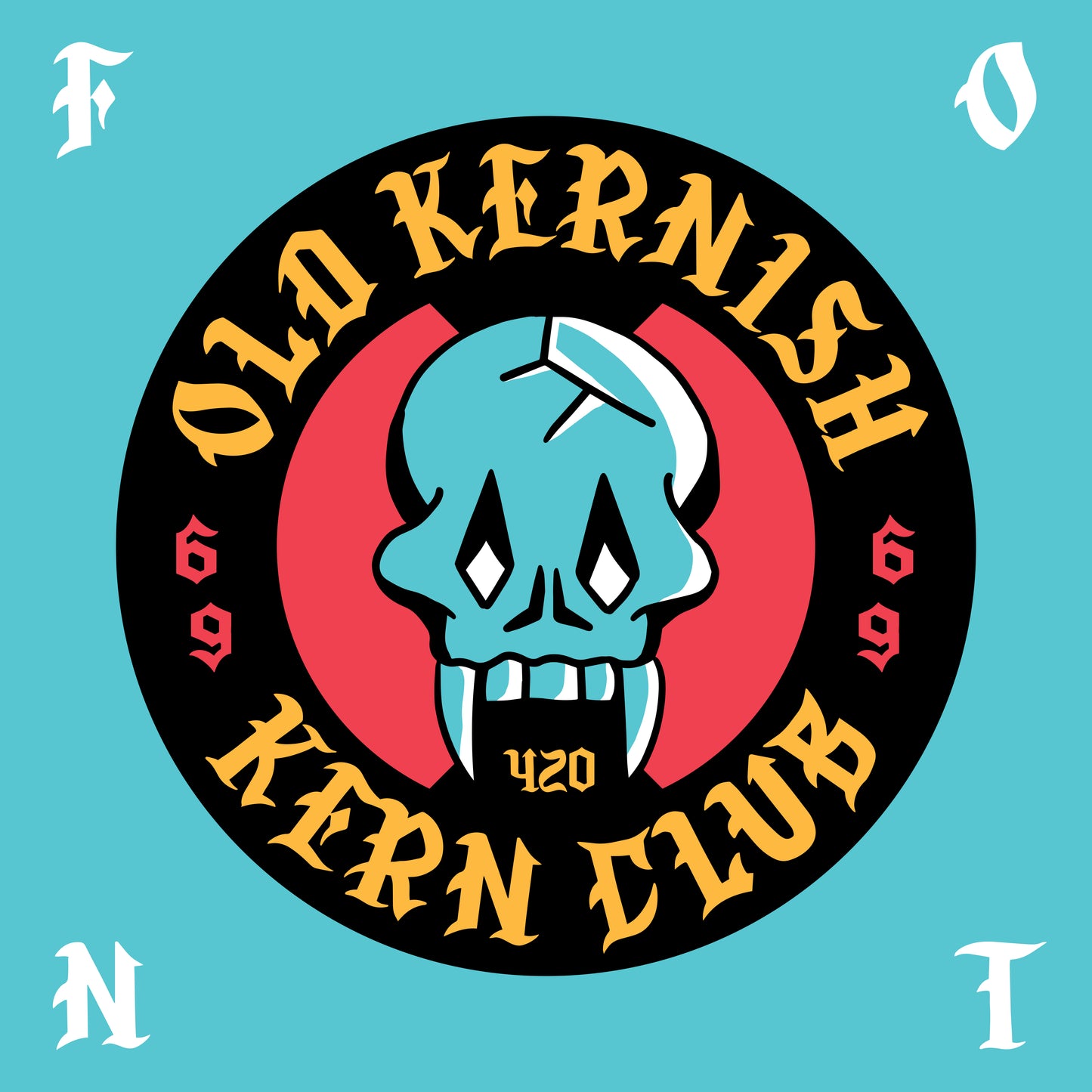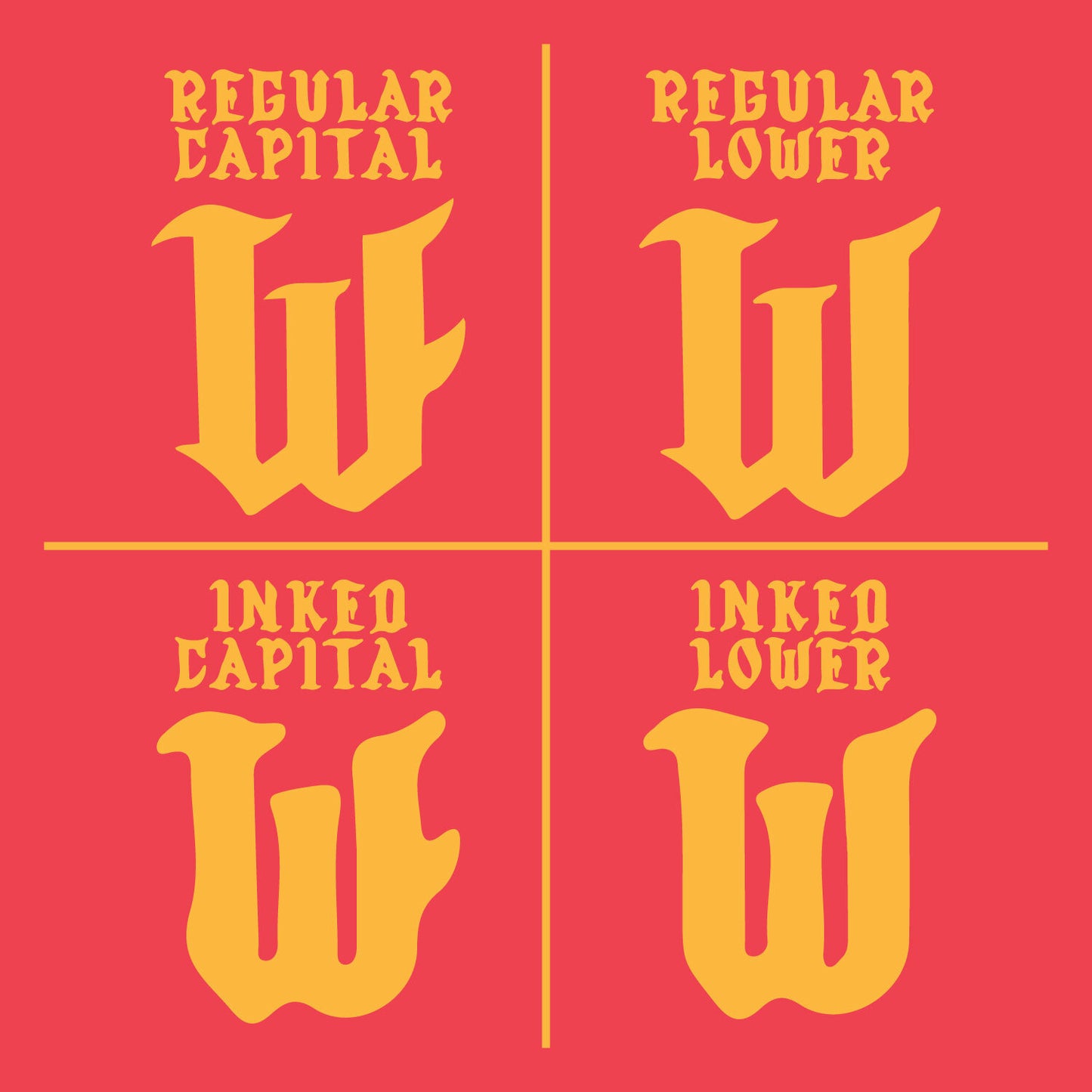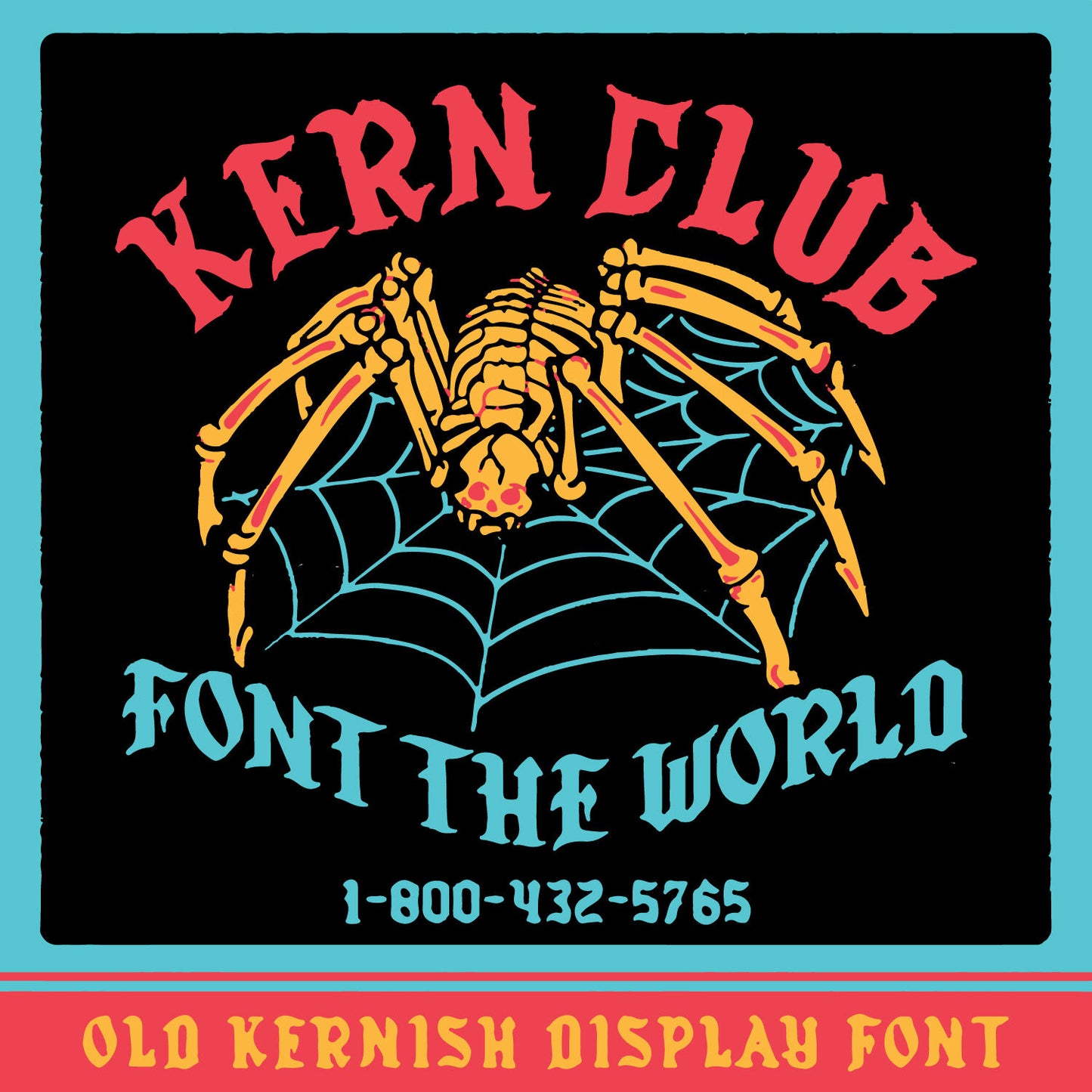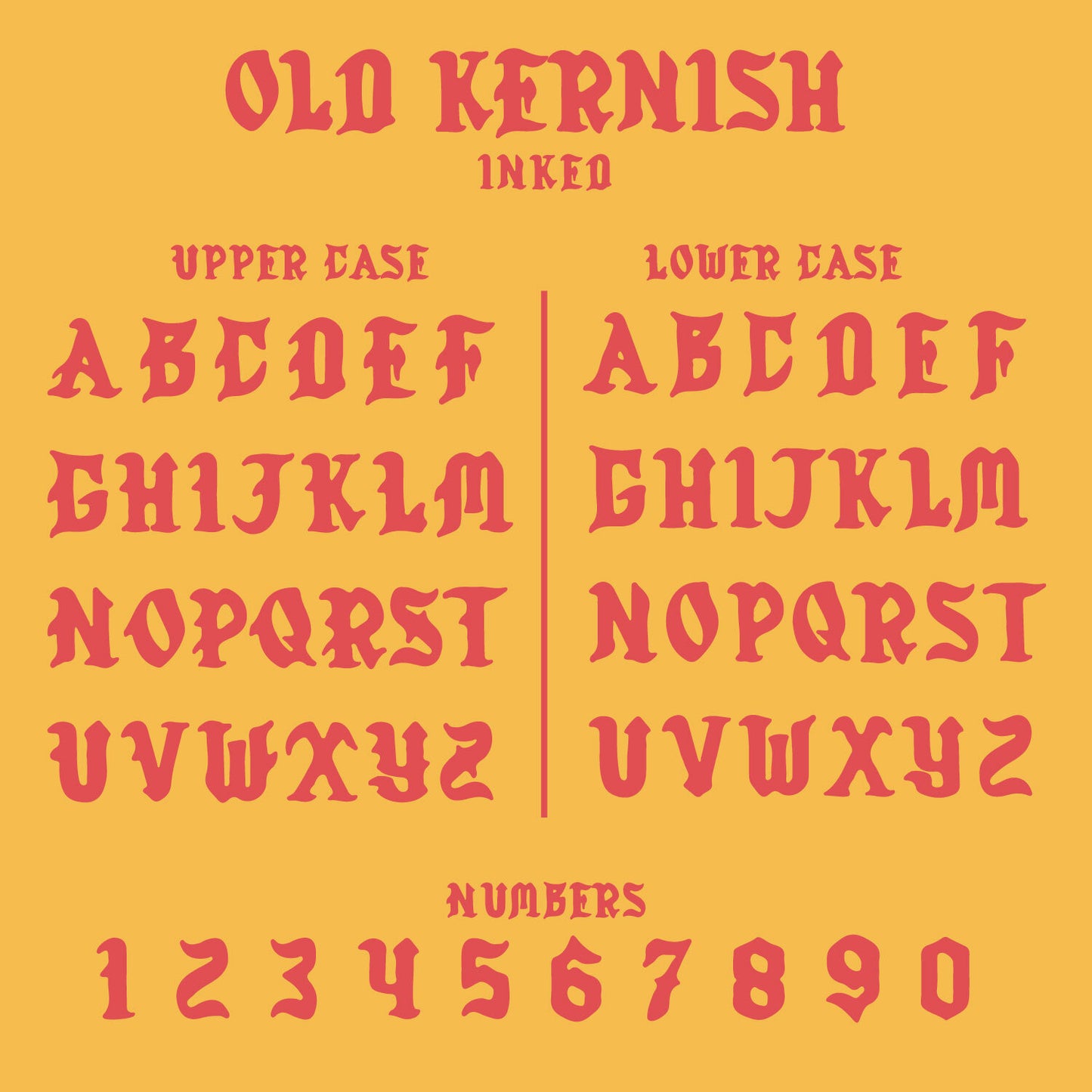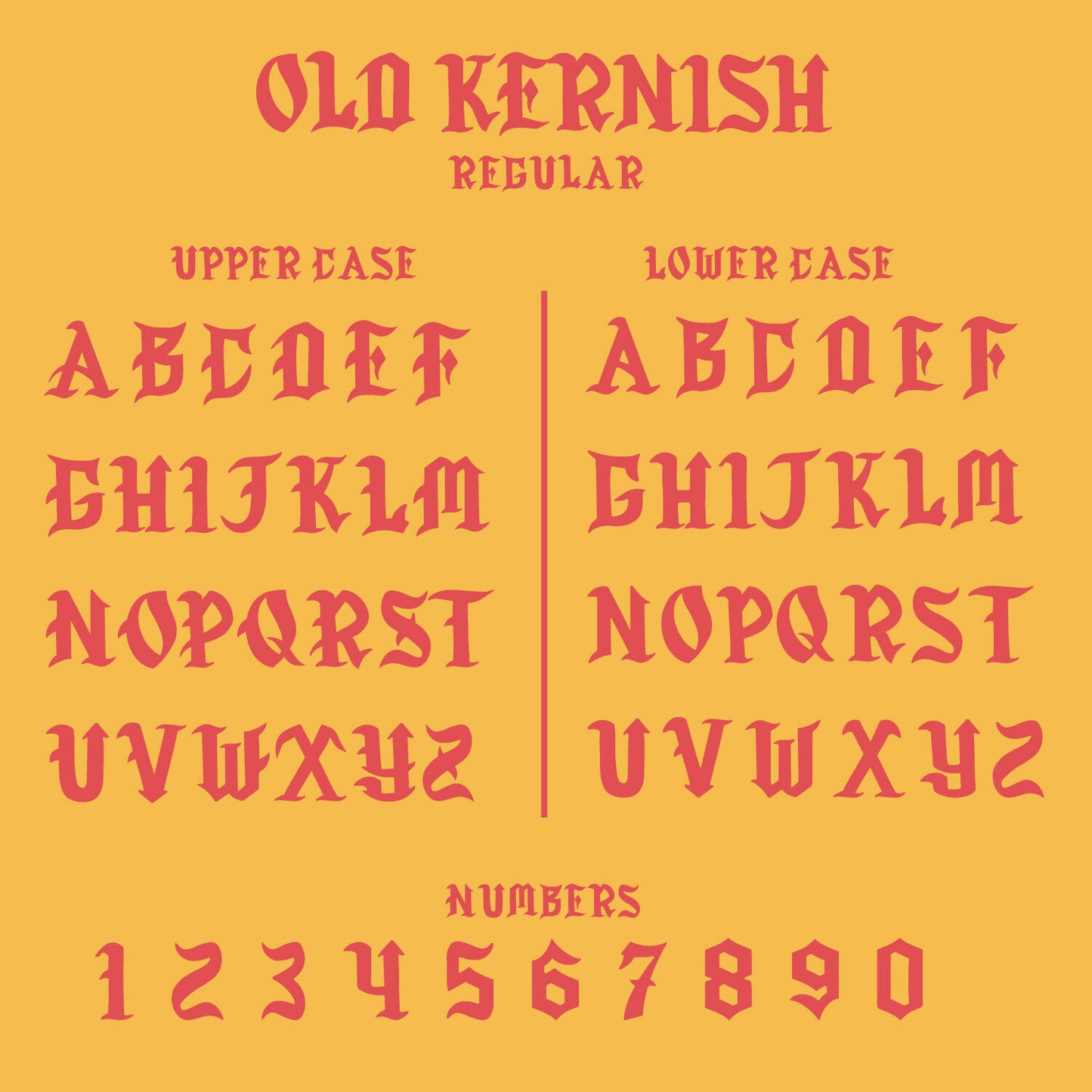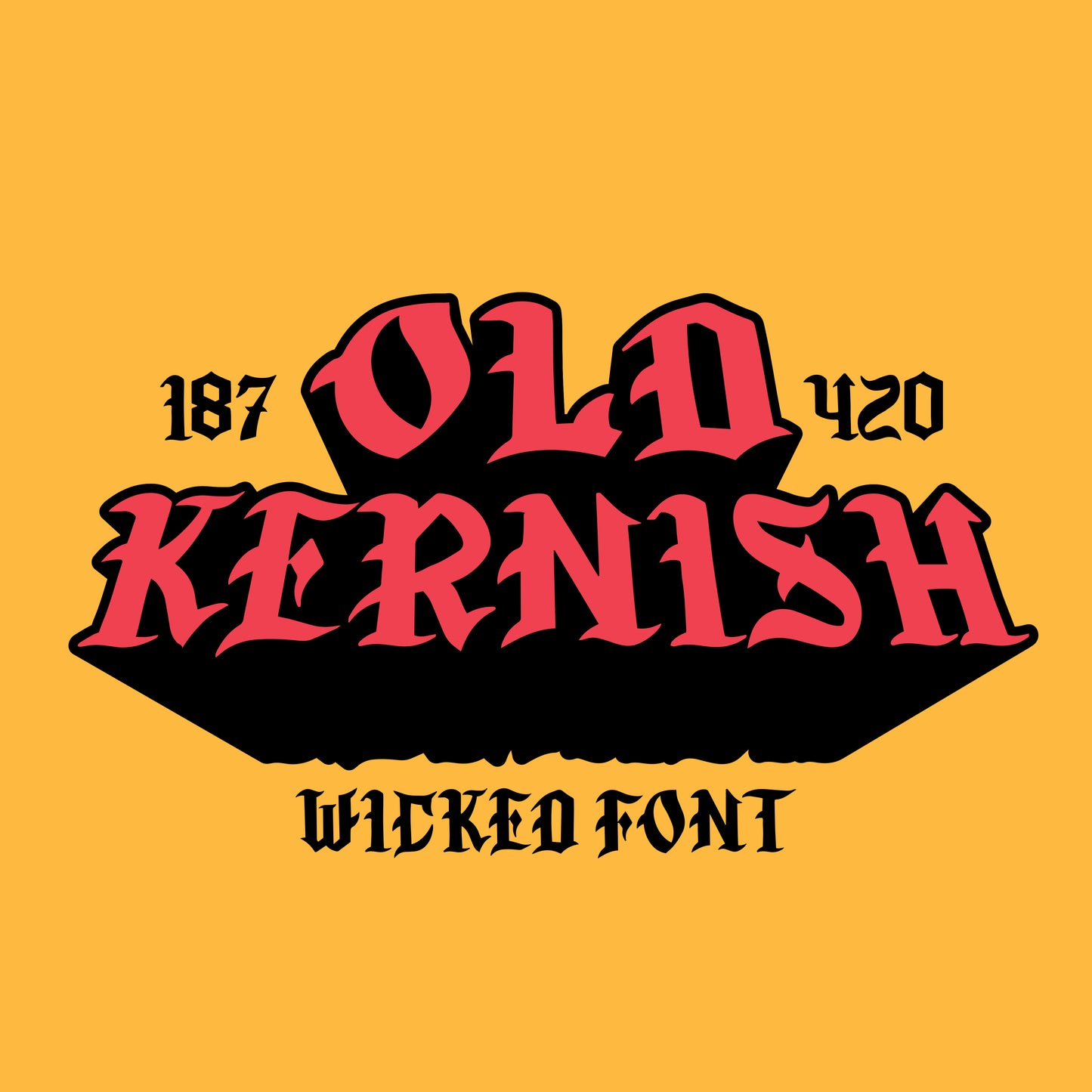
Old Kernish Font
W-I-C-K-E-D Includes a sharp version, and an inked version
- Inked Uppercase Character Set A-Z
- Upper case has middle hooks. Lower case does not and is more simple.
- When kerning, try and mix upper and lower to make the word fit best.